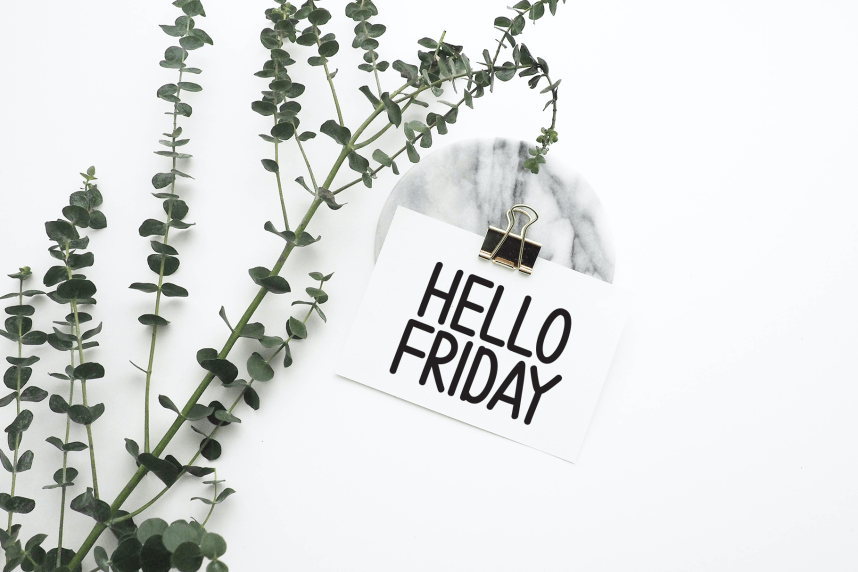
Summer Flower – Playful And Unique Font
Summer Flower – Playful And Unique Font is a sweet and friendly handwritten display font. Cute and fun, this font is ideal for writing wedding invitations, cards, or any other design that might need a playful touch!